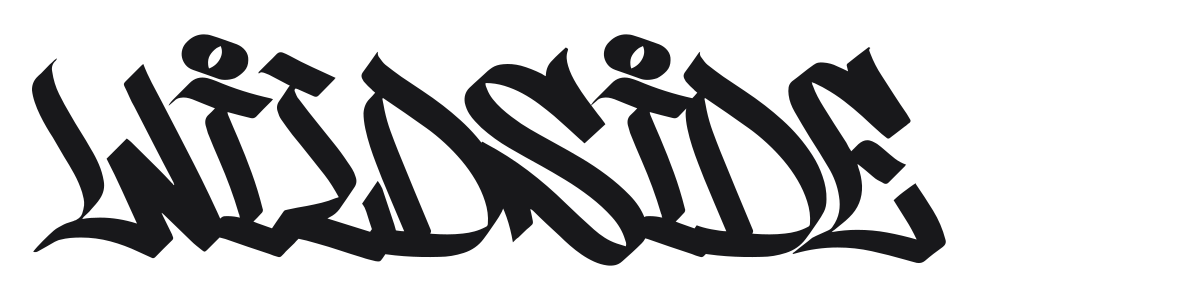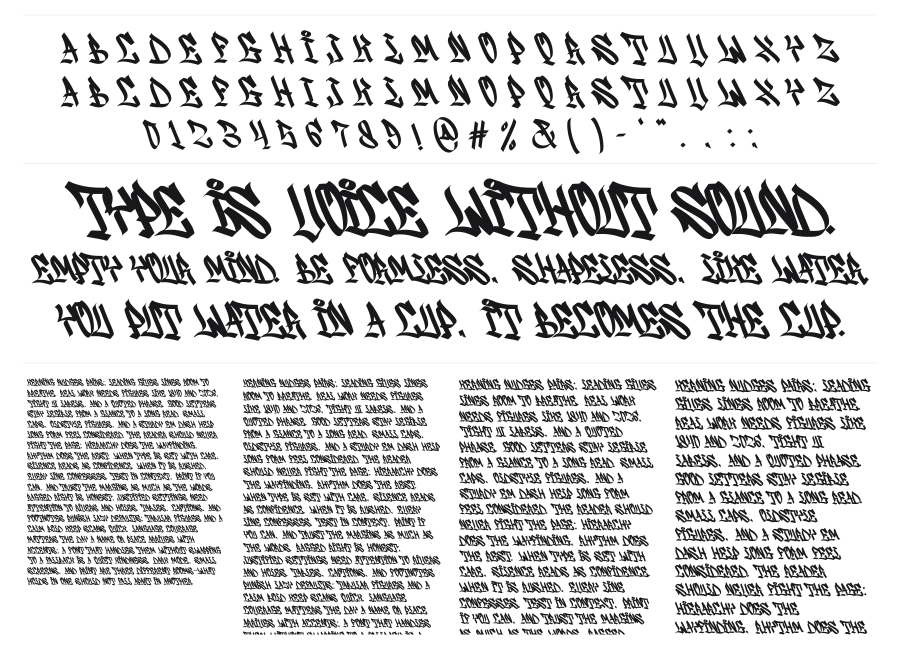
Wildside
Wildside is a wildstyle graffiti script with sharp angular strokes and aggressive forward slant. The characters interlock and overlap in the classic tradition of street lettering, balancing chaos with legibility. It brings authentic urban energy to album covers, streetwear branding, and editorial headlines.